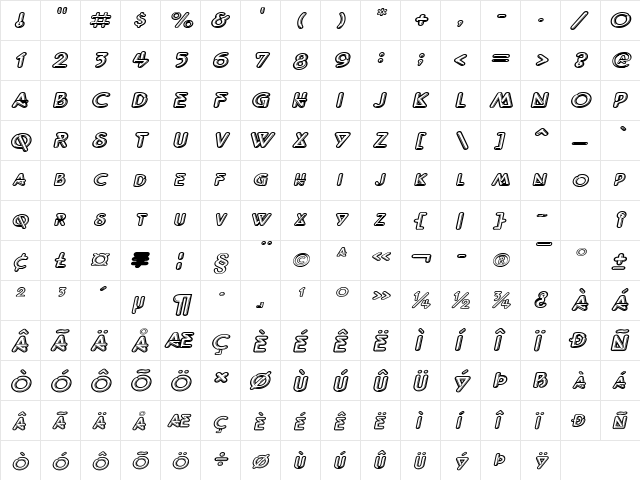
Neonz-Extended Italic
Design Context for Neonz-Extended Typeface
Neonz-Extended channels digital-age aesthetics through its sharp, structured letterforms — ideal for brands that want to signal innovation. The slanted form adds forward momentum and visual energy.